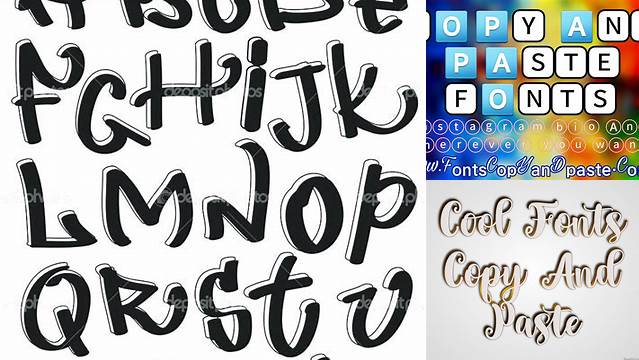
Cool Fonts: Copy & Paste Alphabets For Every Style!
Hey guys! Ever wanted to jazz up your social media posts, spice up your presentations, or just add some flair to your everyday text? You’re in the right place! We're diving deep into the super-fun world of different fonts alphabet copy and paste. Forget those boring, standard fonts – we're talking about turning your words into works of art! Whether you're aiming for something elegant, edgy, playful, or even a little bit mysterious, there's a font out there for you. And the best part? You can copy and paste these fancy alphabets with just a few clicks. Let's get started and explore how you can level up your text game with some seriously cool fonts!
H2: Understanding the Basics of Different Fonts
So, what exactly are different fonts alphabet copy and paste, and why should you care? Simply put, we're talking about text that looks different from the standard Arial or Times New Roman you see everywhere. These unique fonts come in a variety of styles, from classic and sophisticated to modern and quirky. The beauty of using these fonts is that they let you express yourself in ways that plain text just can't. They're perfect for everything from creating eye-catching social media bios to designing stunning graphics. The ability to copy and paste these fonts is what makes them so user-friendly. You don't need any special software or design skills; all you need is a font you love and the ability to copy and paste it into your desired application. It's a super-easy way to make your text stand out from the crowd. Imagine using a stylish, handwritten-style font for your Instagram captions or a bold, futuristic font for a tech blog. The possibilities are endless! And the best part? It's all about adding personality and style to your text. You can truly make your content your own with a bit of font creativity. Remember, the goal is to use fonts that reflect your personality and align with your brand. Choosing the right font can significantly influence how your message is perceived. So, take the time to experiment and find fonts that resonate with you and your audience. Remember to consider the context in which you are using the fonts. A font that works well for a personal project might not be suitable for professional use. Always ensure that the font you select is readable and easy to understand, regardless of the design. Ultimately, different fonts alphabet copy and paste is about injecting personality and flair into your digital communication. It's a simple yet effective way to make your message more engaging and visually appealing.
H3: The Benefits of Using Unique Fonts
Using different fonts alphabet copy and paste has a ton of benefits, especially when you want to catch the eye and make a statement. First off, it's a fantastic way to grab attention. In a world filled with information, standing out is key. Unique fonts help your text pop and draw readers in. Imagine scrolling through social media and seeing a post with a beautifully styled font—it's way more likely to catch your eye than something in plain text. Beyond aesthetics, using unique fonts can also help strengthen your brand identity. Fonts can convey personality, tone, and style. If you’re a creative business, a playful font can convey a sense of fun and approachability. A more elegant font can communicate sophistication and professionalism. This allows you to build a cohesive brand experience. It's also a great way to communicate your message and make your content more engaging. Interesting fonts make reading more enjoyable, especially for longer content. They break up the monotony and keep your audience interested. Consider using unique fonts in your website headers, blog posts, or even email signatures. This helps establish a visual identity that your audience will remember. They are also easy to implement. The whole copy and paste process is super simple, meaning you can quickly add these fonts without needing advanced design skills. It's a quick, accessible way to enhance your content. You can use them in various contexts, from social media to personal projects, making them a versatile tool for anyone looking to add some flair to their text. Also, they can improve readability. The right font can guide the reader's eye, making the content easier to consume, and the wrong font can distract and confuse.
H2: Finding and Selecting Your Favorite Fonts
Alright, so you're ready to dive in and start using different fonts alphabet copy and paste? Fantastic! First things first, you've gotta find the fonts that speak to you. There are tons of websites offering a huge selection of fonts, many of which are completely free. Start by exploring sites like Dafont, 1001 Fonts, and Font Squirrel. These sites are treasure troves of fonts, with options ranging from elegant scripts to bold, modern styles. When you're browsing, think about your specific needs. Are you looking for a font for a headline? Or body text? A good rule of thumb is to choose fonts that complement each other, so consider how they'll work together. When choosing your fonts, remember to select ones that are easily readable. Fancy fonts are great, but if no one can read them, they're not going to do the job! Try testing out the font in different sizes to make sure it looks good on various devices and platforms. Once you find a font you like, take the time to get familiar with its character set. Make sure the font includes all the letters, numbers, and symbols you need. Some fonts have limited character sets. You'll want a font that covers everything. If you're unsure where to start, consider some popular categories like handwritten, gothic, or modern fonts. These styles offer a wide range of options to suit different aesthetic preferences. Remember, the goal is to add a unique touch to your text that resonates with your audience. It is very important to ensure you select different fonts alphabet copy and paste that reflect your personal style and values. The best font will grab attention while also delivering your message clearly and stylishly. Don't be afraid to experiment with different fonts and see what looks best. You'll discover what works and what doesn't.
H3: Top Websites for Copy & Paste Fonts
Looking for the perfect place to find different fonts alphabet copy and paste? Here are a few of my go-to websites that offer a huge variety of font styles, all ready for action. First up, we have cool fonts generators that convert your simple text into all sorts of amazing fonts. These sites usually provide a simple text box where you type your words, and they instantly convert them into multiple font styles. Another great option is copy and paste font websites such as FontSpace and UrbanFonts. These sites offer a user-friendly interface with a vast library of fonts, categorized by style, theme, and popularity. You can easily preview the fonts and copy them for immediate use. Websites like Cool Fonts offer a massive selection of unique fonts. They're designed for easy copy and paste functionality. Simply type your text, choose a font, and copy the output. It's incredibly straightforward! Also, be sure to check out specialized font platforms like FontStruct or WhatTheFont. FontStruct lets you create your own fonts, while WhatTheFont helps you identify fonts from images—a perfect tool when you see a font you love and want to replicate it. When exploring these websites, always look for the 'copy' button or option, which lets you instantly copy your selected font to your clipboard. These websites have made it super easy to add flair to your text with these fonts. Remember, explore and try out different options until you discover the styles that best suit your needs and preferences.
H2: Copying and Pasting Your Chosen Fonts
Now for the fun part: actually using those different fonts alphabet copy and paste! The process is super simple, whether you're on a computer or a mobile device. First, select your desired font from a website or font generator. Type the text you want to convert into the font. You will see your text displayed in multiple styles. Next, copy the styled text. This is usually done by clicking a